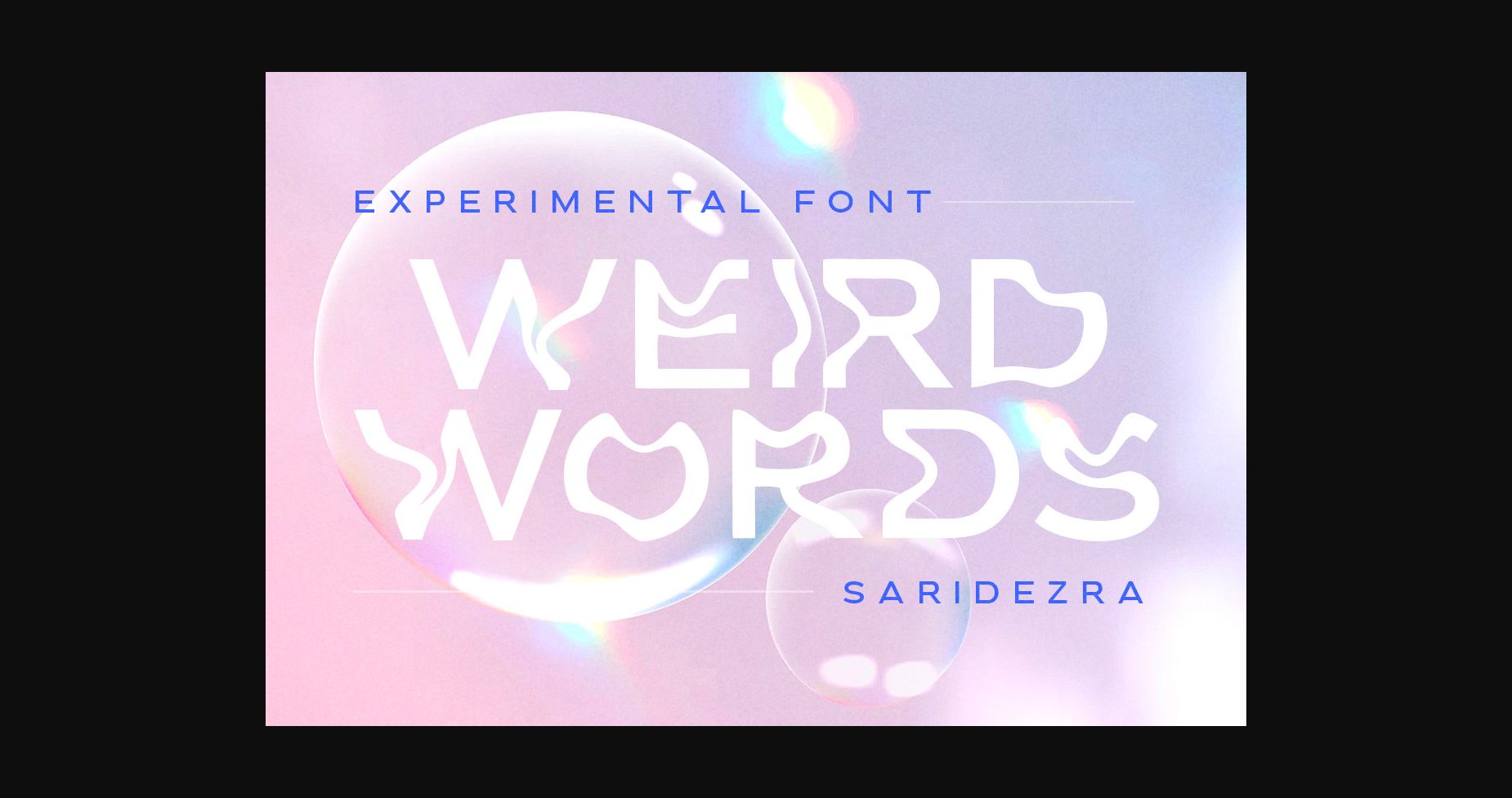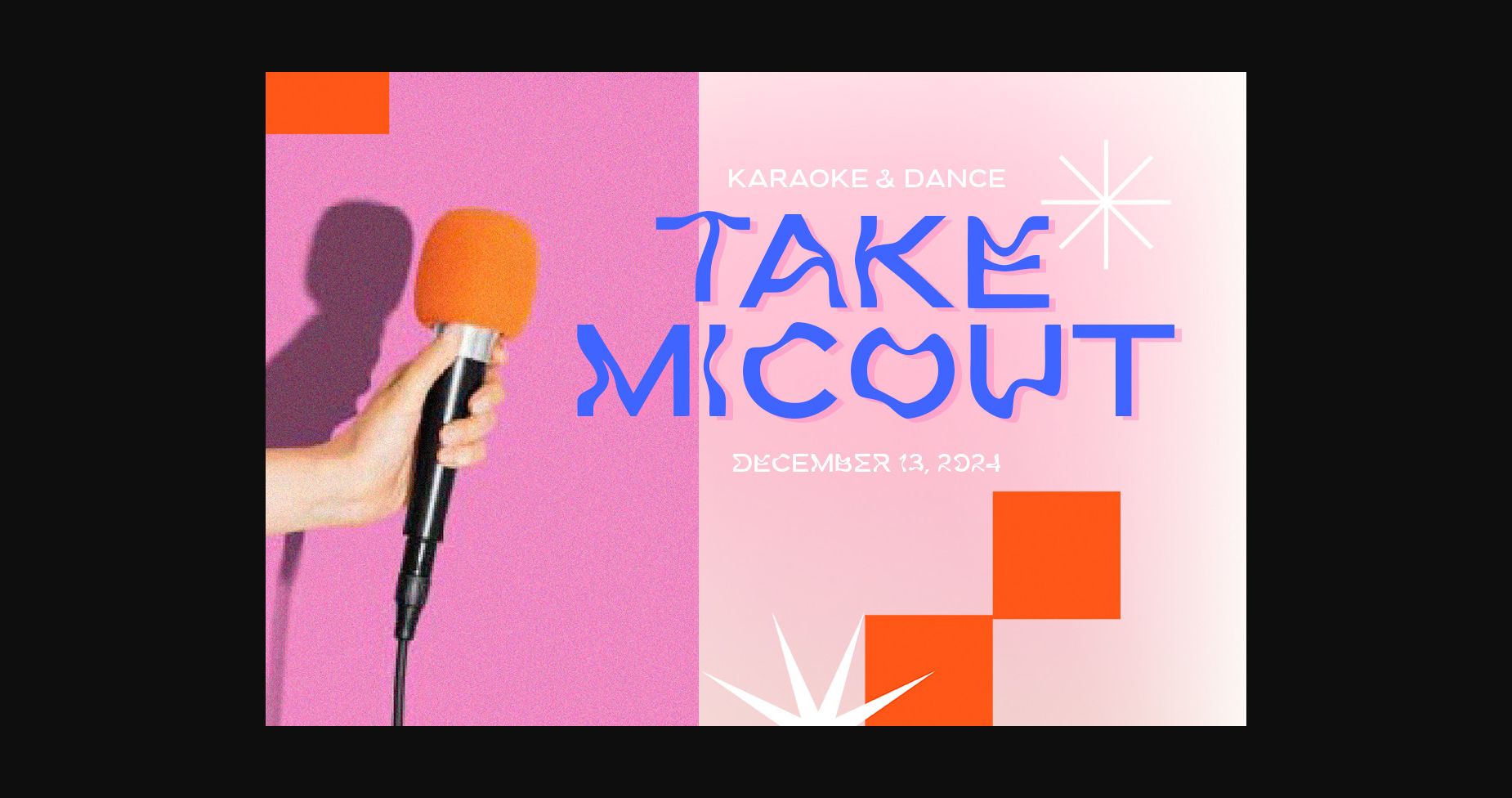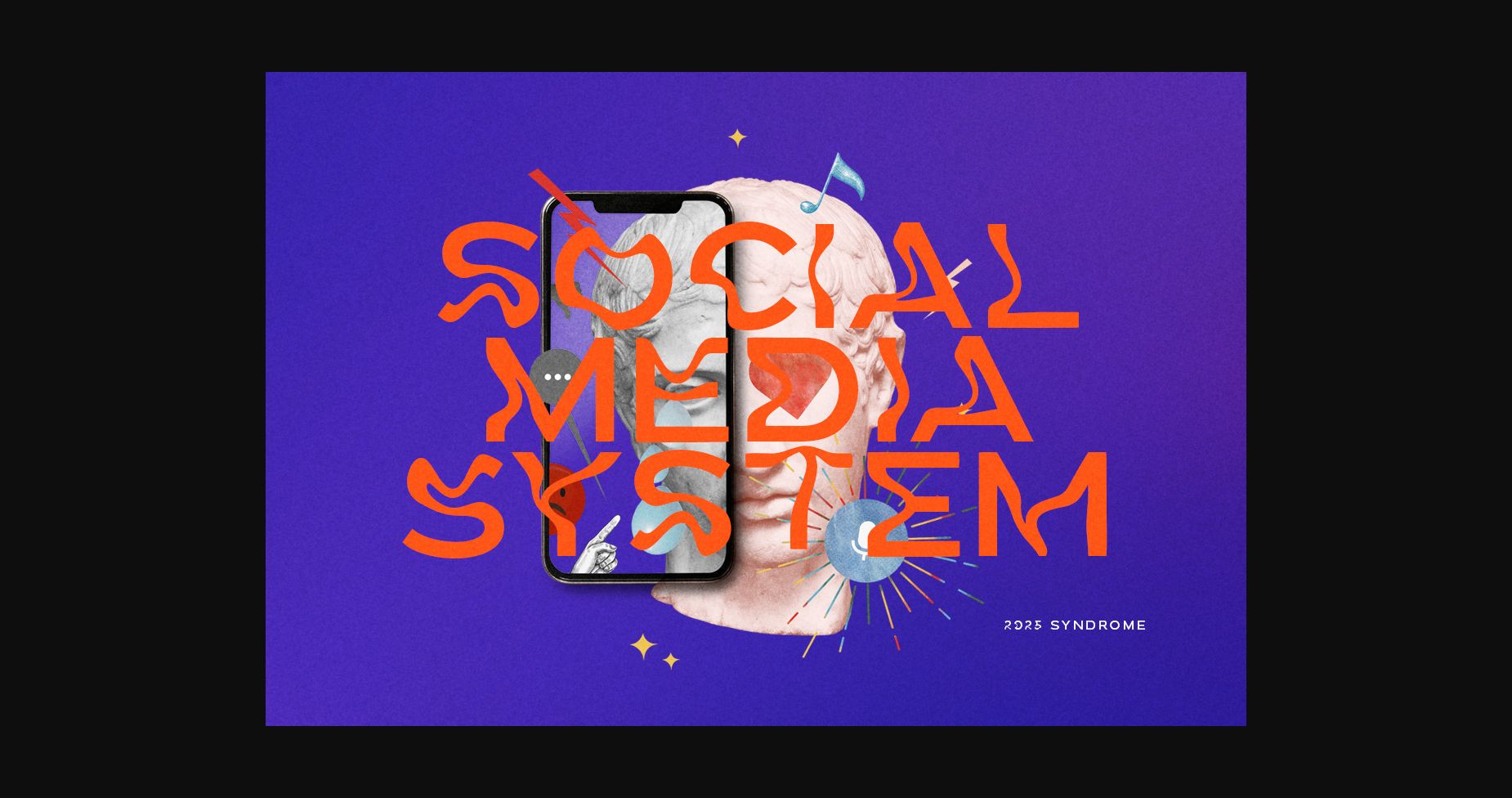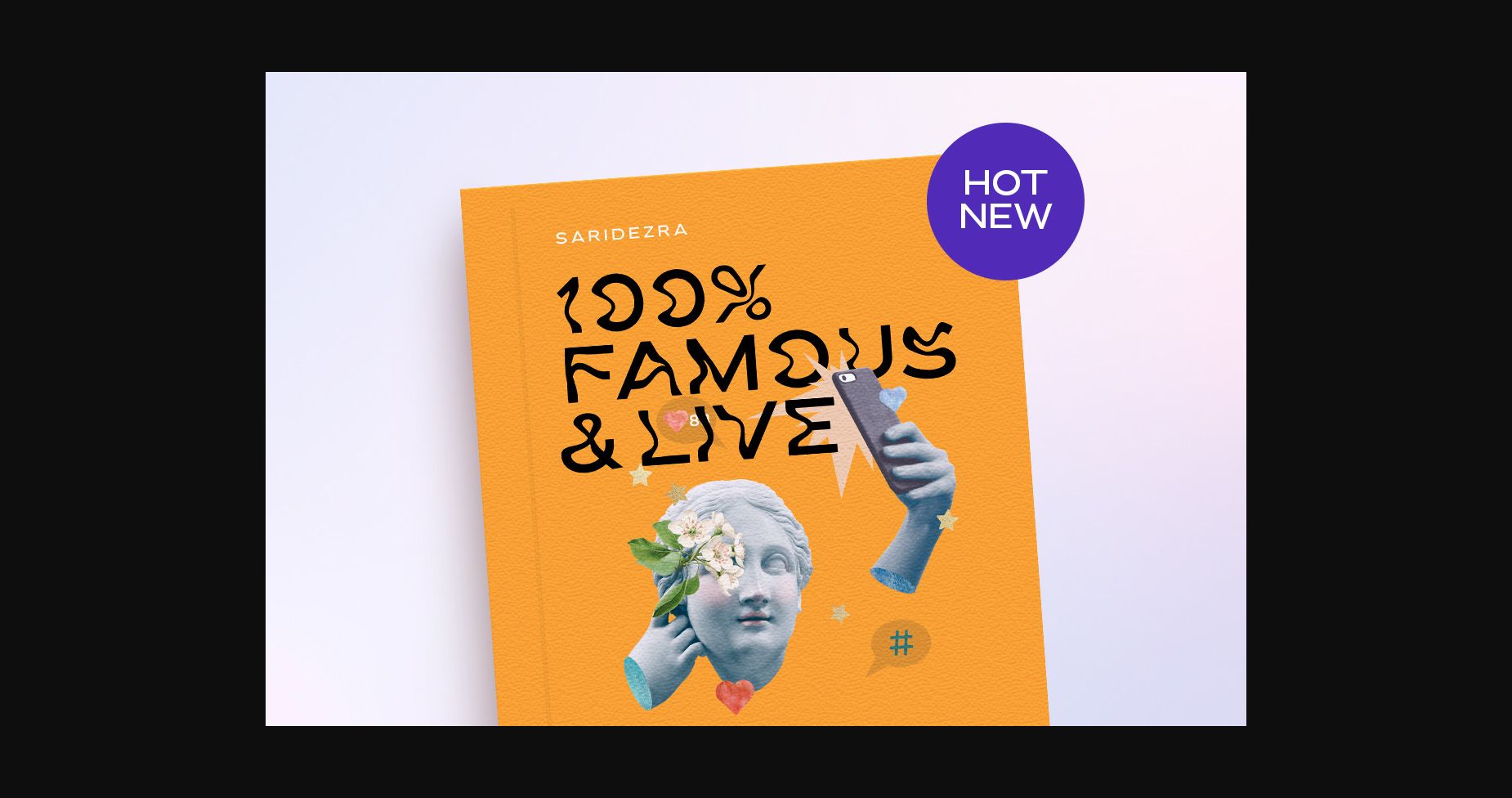
About Weird Words Font
Weird Words is a weird and trendy sans serif font with unique looks and an impressive style. You can use this font for social media posts, posters, headlines, or anything else that needs to stand out. This font is PUA encoded which means you can access all of the glyphs and swashes with ease!